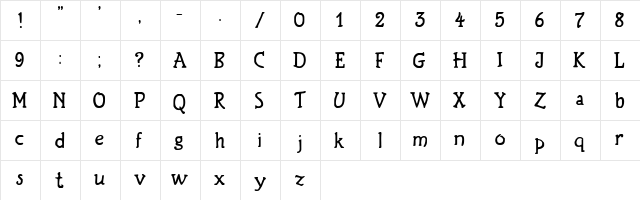
DT Little Star Regular
Design Context for DT Little Star Typeface
DT Little Star is a composed and adaptable typeface that performs quietly and consistently across a wide range of design contexts.